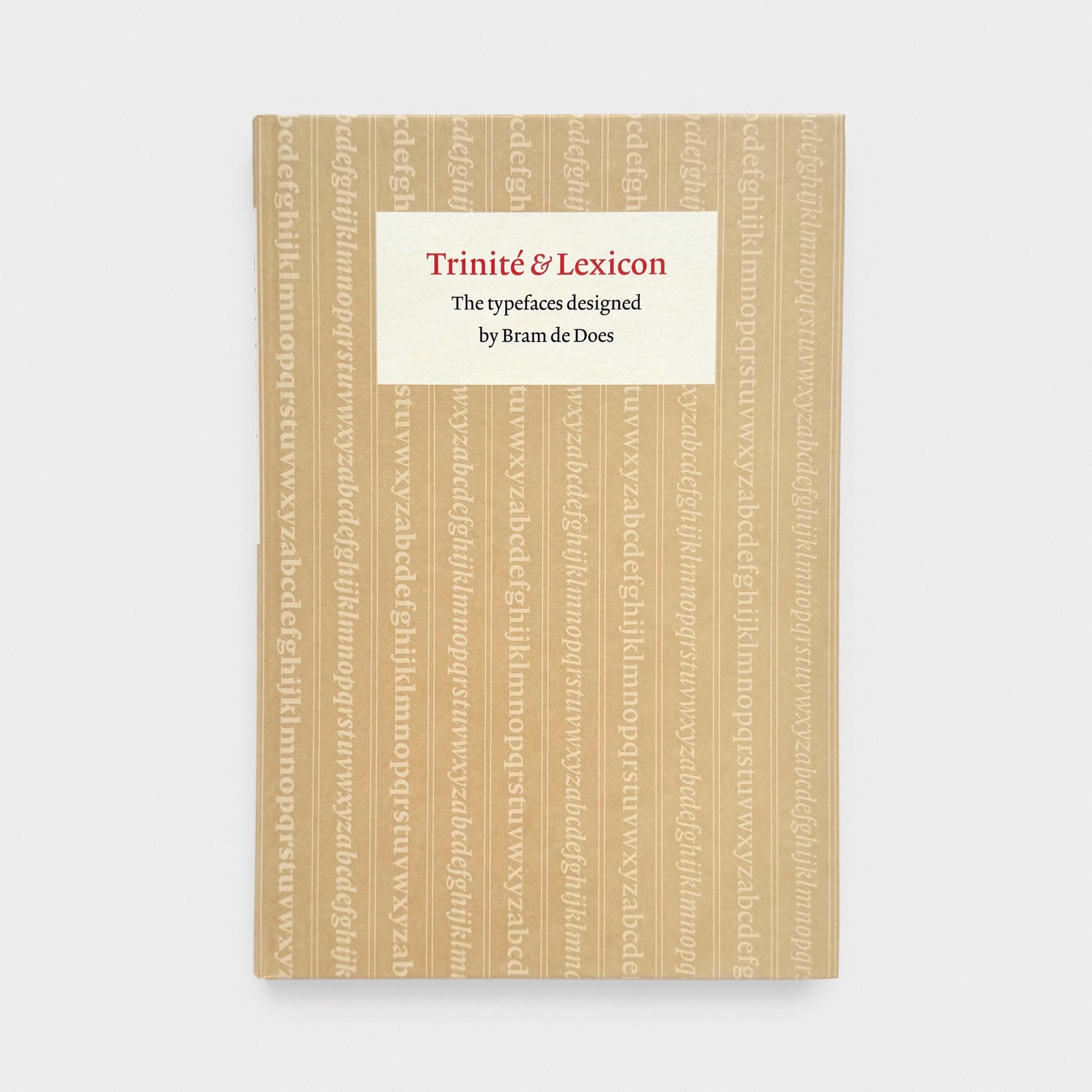
Trinité & Lexicon: The Typefaces Designed by Bram de Does
This book contains the full text of another book, published in 1991 titled ‘Romanée and Trinité: Historically Original and Systematically Sloppy’, for which Dutch graphic and type designer Bram de Does set the text by hand using Jan van Krimpen’s Romanée. Then, in 1999, De Does prepared a dossier about the development of Lexicon for the Amsterdam University Library. Here, he revisits both efforts through type specimens of all the available Trinité and Lexicon fonts. The publication contains many important details from the time of the transition from hand-setting via photo-typesetting to digital typesetting, plus textual examples from an essay by Frans Janssen.